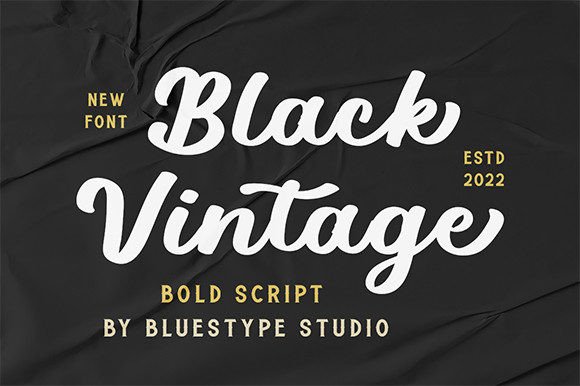
The Power of Black Vintage Font: Elevate Your Designs with Elegance
Have you ever been in the middle of a design project, and suddenly, you’re stuck on finding the perfect font? I recall a recent experience where I was working on a branding project for a luxury fashion brand, and I just couldn’t find a font that exuded the right amount of elegance and sophistication. That’s when I stumbled upon the Black Vintage font, and it completely transformed my design. In this article, we’ll explore the world of Black Vintage font, its features, and how to make the most of it in your designs.
A Personal Review: What I Love About Black Vintage Font
As a designer, I’m always on the lookout for fonts that can elevate my work. Here’s what I love about Black Vintage font:
- ✨ Beautiful and bold characters: The Black Vintage font boasts stunning, bold characters that add a touch of luxury to any design.
- ✅ Vintage script calligraphy style: The font’s vintage script calligraphy style gives it a unique, sophisticated look that’s perfect for high-end branding and designs.
While I love the Black Vintage font, there are a few quirks to be aware of:
- 🤔 Some characters may require manual adjustment: Depending on the design, some characters may require manual adjustment to ensure they fit perfectly.
- ⚠️ Limited use on small font sizes: Due to its bold nature, the font may not be suitable for small font sizes, as it may lose its elegance and become too overpowering.
The Black Vintage font was inspired by the classic calligraphy of the past. The designer aimed to create a font that would evoke a sense of luxury, elegance, and sophistication. The result is a stunning script font that’s perfect for designs that require a touch of vintage glamour.
Q: What is the Black Vintage font best suited for?
A: The Black Vintage font is suitable for a variety of designs, including t-shirt designs, logotype, branding, quotes, social media, watermarks, clothing, and YouTube videos.
Q: Is the Black Vintage font suitable for small font sizes?
A: Due to its bold nature, the Black Vintage font may not be suitable for small font sizes, as it may lose its elegance and become too overpowering.